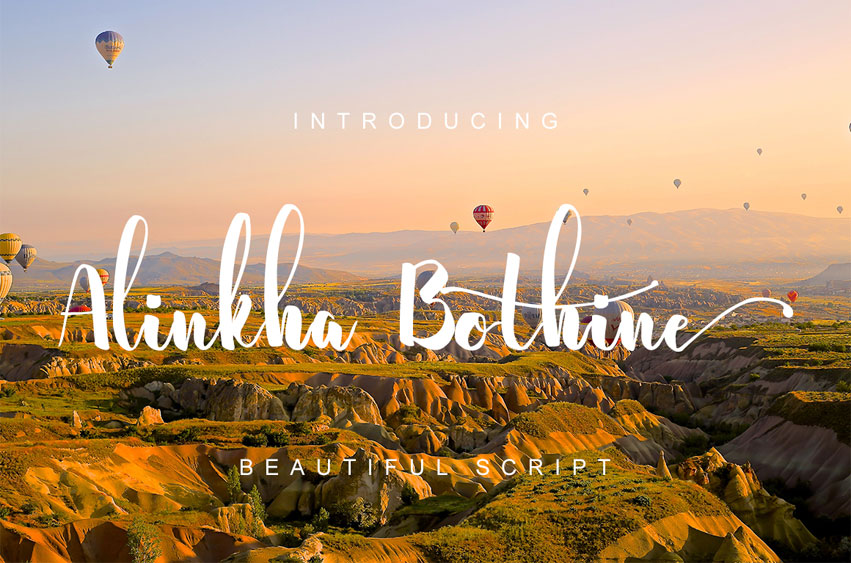
Alinkha Bothine Font
Alinkha Bothine Font is a stunning handmade script font with a classic style.
It fits in headlines, logos, posters, flyers, invitations, name cards, branding materials, print media, editorial layouts, and many more.